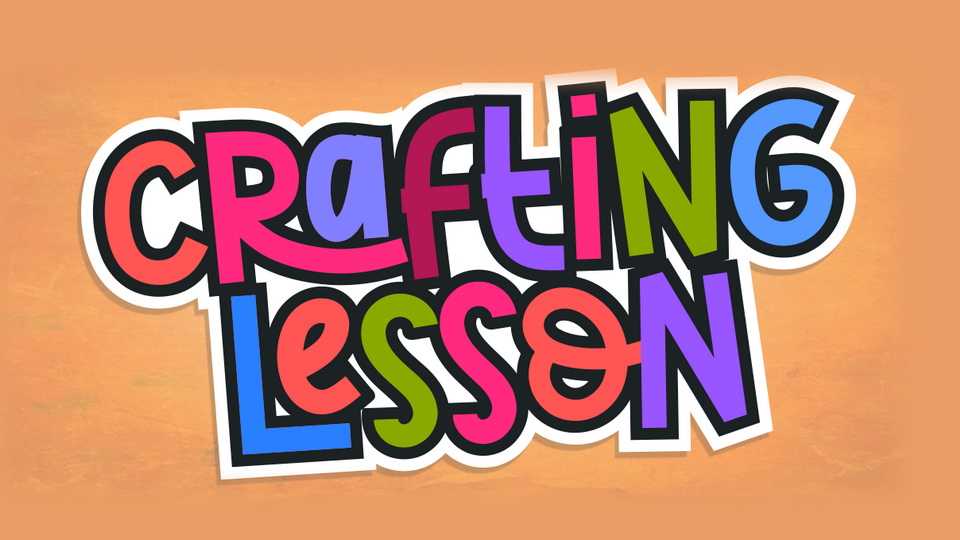
Download Crafting Lesson font, a fun and quirky hand drawn typeface. The font is perfect for crafting projects, headings, blogs, logos, branding, stickers, invitations, t-shirts, mugs and more.